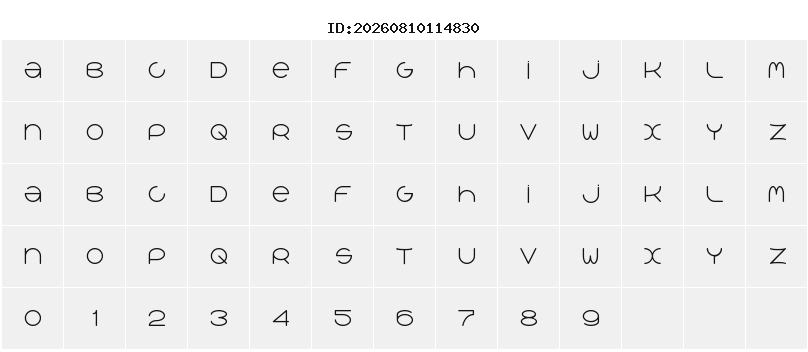
• Font Name: qréalib
About qréalib.ttf
qréalib.ttf is a modern, elegant sans-serif font designed for ultimate readability and visual harmony. Perfect for branding, headlines, web design, and print materials.